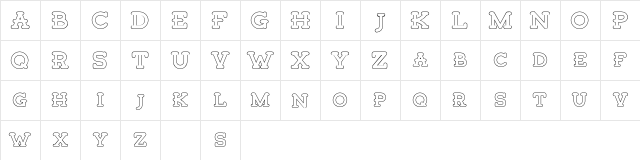
Tigreal Free Outline Regular
Design Context for Tigreal Free Outline Typeface
Tigreal Free Outline is built around its visual character rather than neutral utility — its distinctive forms are designed to make an impression at display sizes.
Font Pairing: Pair with a clean neutral sans-serif for body copy to let Tigreal Free Outline's character lead without overwhelming the composition.
Pro Tip: Use Tigreal Free Outline exclusively at display sizes — it was designed to be seen, not read at length. Let a neutral companion handle body copy.